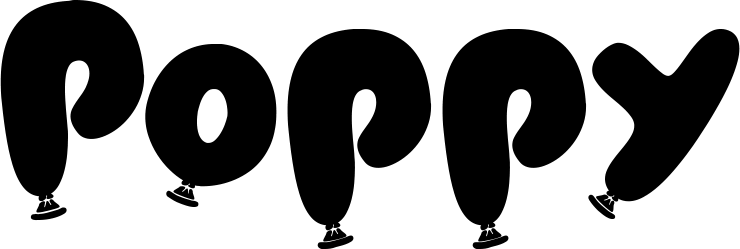
Poppy AOE Font
Designed byAstigmatic One Eye Typographic Institute
As a result of its characters being inflated balloons curved as such to maintain the outline of the alphabet, Poppy AOE takes charge of the playful and creative look your design requires.
Its smooth rounded letters give off happy vibes as if working as real balloons decorating your text and conveying your message along the way. Ready to share these exciting features with your designs, this balloon font chimes in perfectly with informal invitations, posters, gaming, clothes, or else.